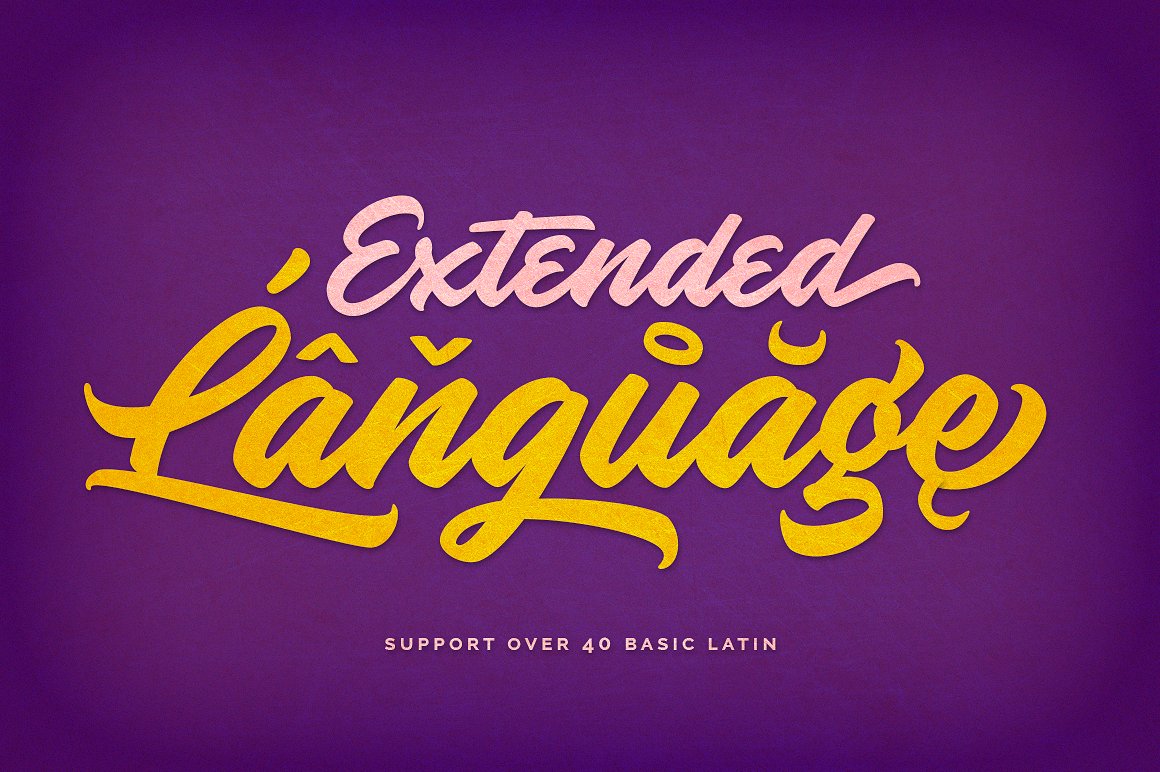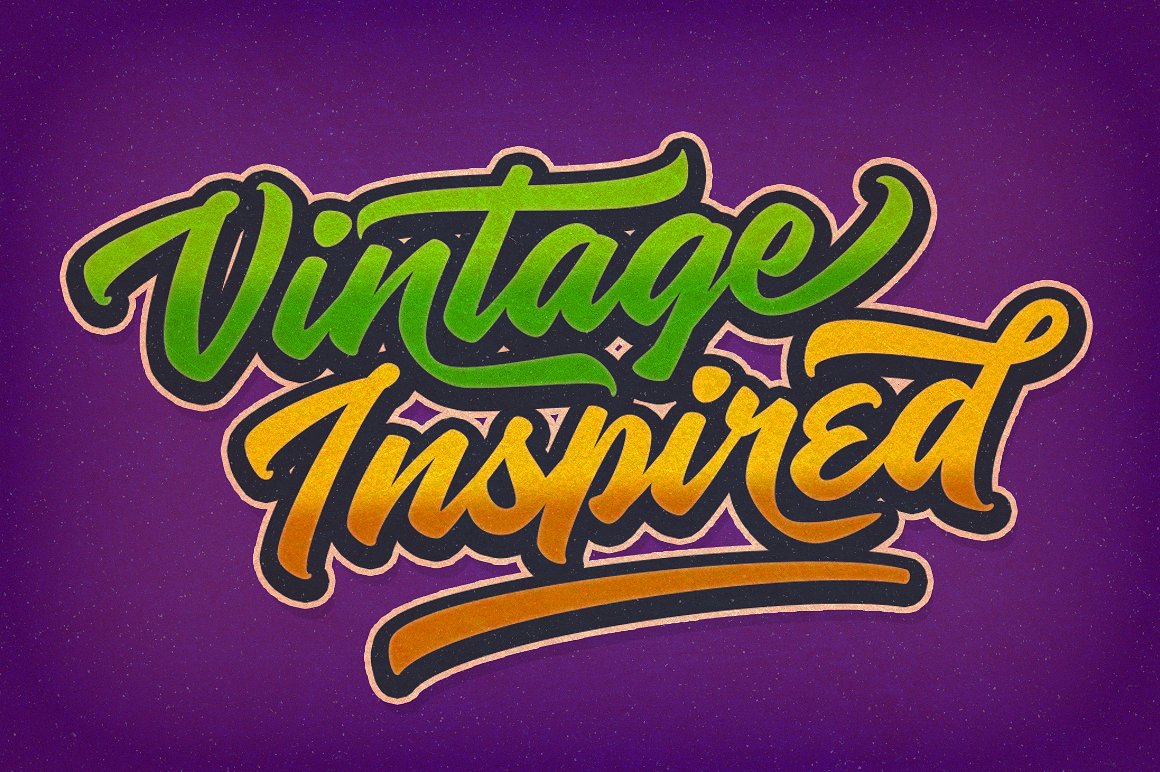
Knight Brush Font
db-ku.com - Script & Handwritten -- Inspired by vintage storefront design, Knight Brush is an extremely adaptable font. Made to resemble brush painting, this font is the perfect choice for a multitude of bold design ideas.